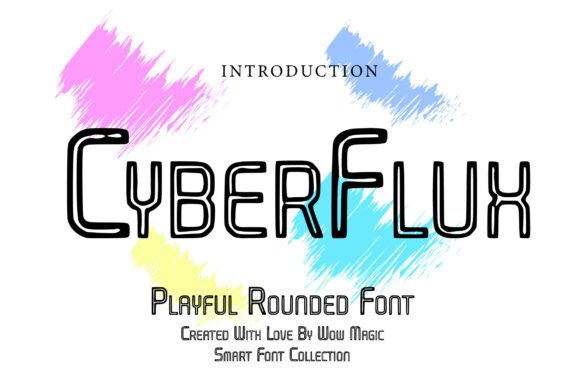
Cyberflux: A Futuristic Font for Bold Digital Design
In the ever-evolving world of digital design, the right typography can make all the difference. Cyberflux is a cutting-edge tubular outline display font that captures the essence of cyberpunk aesthetics, neon lights, and high-tech environments. With its smooth rounded corners and clean monoline structure, Cyberflux offers a sleek, modern look that stands out in any project. Its unique hollow outline construction gives it a glowing, sci-fi feel, making it an ideal choice for creators looking to add a futuristic touch to their work.
Whether you're designing a tech brand, creating gaming graphics, or working on a sci-fi poster, Cyberflux brings a powerful and stylish digital energy to your designs. This font is not just about visual appeal; it's about delivering a message that resonates with the future of technology and innovation.
Understanding the Challenges of Modern Design
Designers today face numerous challenges when it comes to creating visually striking and effective digital content. From standing out in a crowded market to maintaining consistency across various platforms, the need for a versatile and impactful typeface has never been greater. Traditional fonts often lack the uniqueness required to capture attention in a fast-paced digital landscape.
Moreover, the demand for bold and innovative visuals is increasing, especially in industries like technology, gaming, and entertainment. Brands are constantly seeking ways to differentiate themselves and connect with their audience through compelling design elements. This is where Cyberflux comes into play, offering a solution that aligns with the evolving needs of modern designers.
How Cyberflux Addresses Design Needs
Cyberflux is specifically designed to meet the demands of contemporary design projects. Its geometric flow and balanced spacing ensure that it is both eye-catching and easy to read, making it suitable for a wide range of applications. The font's hollow outline construction adds a layer of depth and visual interest, allowing it to stand out in any context.
For tech startups, Cyberflux provides a strong foundation for branding. Its futuristic aesthetic aligns perfectly with the innovative spirit of new businesses, helping them establish a distinct identity in the market. In gaming graphics, the font's dynamic look enhances the overall experience, creating a sense of immersion and excitement for players.
Practical Applications of Cyberflux
The versatility of Cyberflux makes it a valuable asset in various design scenarios. For YouTube thumbnails, the font's bold and eye-catching appearance can significantly increase click-through rates. Its neon-like glow adds a visually appealing element that grabs attention and encourages viewers to engage with the content.
When it comes to album covers, Cyberflux offers a modern and edgy look that complements the music's theme. It can be used to create a cohesive visual identity that reflects the artist's style and appeals to their target audience. In logo design, the font's clean lines and futuristic feel help convey a sense of professionalism and innovation.
For social media graphics, Cyberflux provides a fresh and engaging way to present information. Its ability to adapt to different sizes and formats ensures that it remains effective across various platforms. Whether it's a tweet, a post, or a story, the font maintains its impact and readability.
Considerations for Different Users
While Cyberflux is a powerful tool, its application may vary depending on the user's specific needs and goals. Tech startups might focus on using the font for branding and marketing materials, while game developers could prioritize its use in UI elements and in-game text. Each approach highlights the font's adaptability and potential to enhance different aspects of a project.
Additionally, the font's unique characteristics make it suitable for a variety of creative fields. From digital posters to futuristic headline projects, Cyberflux offers a consistent and impactful visual language that can be tailored to suit different contexts. By understanding the specific requirements of each project, designers can maximize the benefits of using Cyberflux.
Conclusion
Cyberflux is more than just a font; it's a powerful tool that empowers designers to create bold and innovative digital experiences. Its futuristic aesthetic, combined with its practical applications, makes it an essential asset for anyone looking to elevate their design work. Whether you're launching a tech startup, developing a game, or creating a digital poster, Cyberflux offers the perfect blend of style and functionality to meet your needs.
By incorporating Cyberflux into your design process, you can ensure that your work stands out in a competitive market. Its ability to convey a sense of modernity and innovation makes it an ideal choice for a wide range of projects. With Cyberflux, the future of digital design is not just imagined—it's realized.